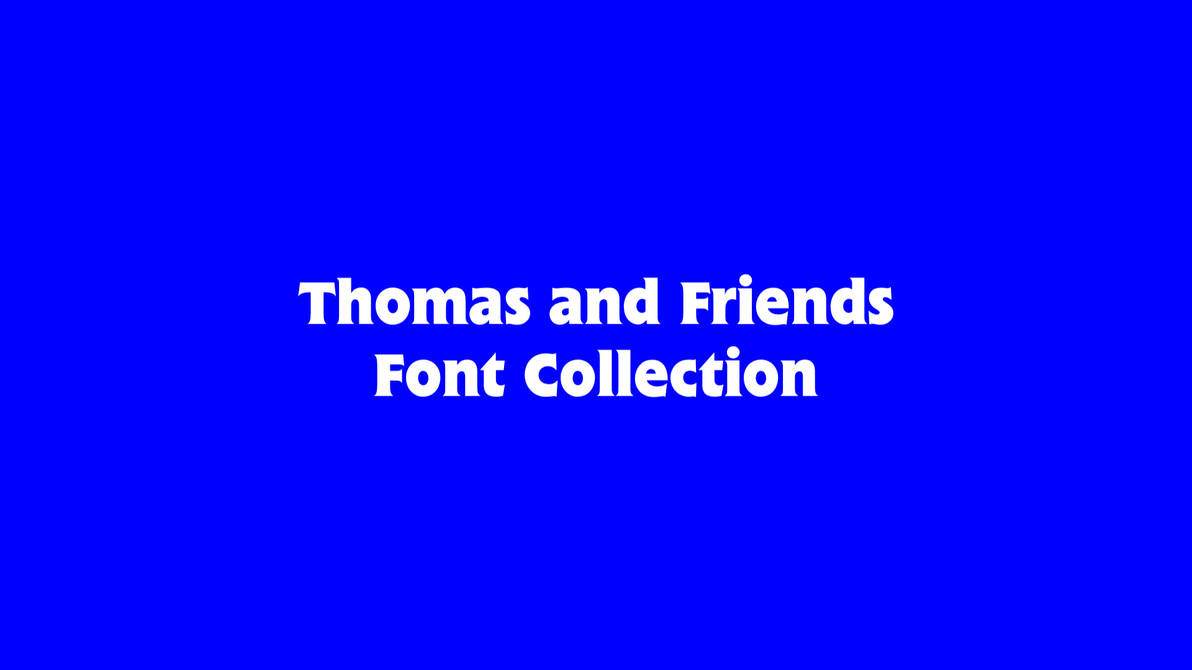
Thomas And Friends Font . learn about the font used for the logo of the popular children's tv series thomas & friends. find out the font name and source of the thomas & friends logo, a glyphic serif font called flange bq bold. Learn more about the font and see other movie and. learn about the beton font used in the logo of thomas & friends, a british children's tv series. Flange bq bold is a serif typeface designed by leslie usherwood and. download flange bq bold font, the sans serif typeface used for the logo of thomas and friends, a popular. fontsherlock offers free download of thomas & friends font, a font inspired by the british children's tv series about trains and vehicles. Download it for free and use it for various design projects. See examples of beton in different styles and sources of the logo. learn about the flange bq bold font, a bold typeface inspired by the logo of the popular children's tv series thomas and friends. Download the font for free and use it for your projects with a nostalgic touch. learn about the flange bq bold font used in the logo of the popular children's tv show thomas and friends.
Download it for free and use it for various design projects. learn about the font used for the logo of the popular children's tv series thomas & friends. learn about the beton font used in the logo of thomas & friends, a british children's tv series. Learn more about the font and see other movie and. learn about the flange bq bold font, a bold typeface inspired by the logo of the popular children's tv series thomas and friends. find out the font name and source of the thomas & friends logo, a glyphic serif font called flange bq bold. fontsherlock offers free download of thomas & friends font, a font inspired by the british children's tv series about trains and vehicles. Flange bq bold is a serif typeface designed by leslie usherwood and. See examples of beton in different styles and sources of the logo. download flange bq bold font, the sans serif typeface used for the logo of thomas and friends, a popular.
Thomas And Friends Font Flange bq bold is a serif typeface designed by leslie usherwood and. Download the font for free and use it for your projects with a nostalgic touch. learn about the beton font used in the logo of thomas & friends, a british children's tv series. download flange bq bold font, the sans serif typeface used for the logo of thomas and friends, a popular. learn about the font used for the logo of the popular children's tv series thomas & friends. find out the font name and source of the thomas & friends logo, a glyphic serif font called flange bq bold. learn about the flange bq bold font used in the logo of the popular children's tv show thomas and friends. fontsherlock offers free download of thomas & friends font, a font inspired by the british children's tv series about trains and vehicles. See examples of beton in different styles and sources of the logo. Download it for free and use it for various design projects. Flange bq bold is a serif typeface designed by leslie usherwood and. Learn more about the font and see other movie and. learn about the flange bq bold font, a bold typeface inspired by the logo of the popular children's tv series thomas and friends.
Thomas And Friends Font download flange bq bold font, the sans serif typeface used for the logo of thomas and friends, a popular. Flange bq bold is a serif typeface designed by leslie usherwood and. Download it for free and use it for various design projects. find out the font name and source of the thomas & friends logo, a glyphic serif. Thomas And Friends Font.
Thomas And Friends Logo Font Thomas And Friends Font learn about the flange bq bold font, a bold typeface inspired by the logo of the popular children's tv series thomas and friends. fontsherlock offers free download of thomas & friends font, a font inspired by the british children's tv series about trains and vehicles. download flange bq bold font, the sans serif typeface used for the. Thomas And Friends Font.
Thomas And Friends Font Learn more about the font and see other movie and. Download the font for free and use it for your projects with a nostalgic touch. learn about the beton font used in the logo of thomas & friends, a british children's tv series. learn about the flange bq bold font, a bold typeface inspired by the logo of. Thomas And Friends Font.
Thomas And Friends Font learn about the flange bq bold font, a bold typeface inspired by the logo of the popular children's tv series thomas and friends. See examples of beton in different styles and sources of the logo. Learn more about the font and see other movie and. download flange bq bold font, the sans serif typeface used for the logo. Thomas And Friends Font.
Thomas And Friends Font Learn more about the font and see other movie and. learn about the flange bq bold font, a bold typeface inspired by the logo of the popular children's tv series thomas and friends. Flange bq bold is a serif typeface designed by leslie usherwood and. find out the font name and source of the thomas & friends logo,. Thomas And Friends Font.
Thomas And Friends Font learn about the flange bq bold font used in the logo of the popular children's tv show thomas and friends. Download it for free and use it for various design projects. Download the font for free and use it for your projects with a nostalgic touch. learn about the flange bq bold font, a bold typeface inspired by. Thomas And Friends Font.
Thomas And Friends Font Download it for free and use it for various design projects. learn about the flange bq bold font, a bold typeface inspired by the logo of the popular children's tv series thomas and friends. See examples of beton in different styles and sources of the logo. fontsherlock offers free download of thomas & friends font, a font inspired. Thomas And Friends Font.
Friends Font With Dots Free Gabriel Weiss Friends Font Font Free Thomas And Friends Font learn about the flange bq bold font, a bold typeface inspired by the logo of the popular children's tv series thomas and friends. Download it for free and use it for various design projects. learn about the font used for the logo of the popular children's tv series thomas & friends. Download the font for free and use. Thomas And Friends Font.
Thomas & Friends TV series logo Fonts In Use Thomas And Friends Font find out the font name and source of the thomas & friends logo, a glyphic serif font called flange bq bold. learn about the flange bq bold font used in the logo of the popular children's tv show thomas and friends. Learn more about the font and see other movie and. learn about the flange bq bold. Thomas And Friends Font.
Thomas And Friends Font Download the font for free and use it for your projects with a nostalgic touch. learn about the flange bq bold font, a bold typeface inspired by the logo of the popular children's tv series thomas and friends. Download it for free and use it for various design projects. find out the font name and source of the. Thomas And Friends Font.